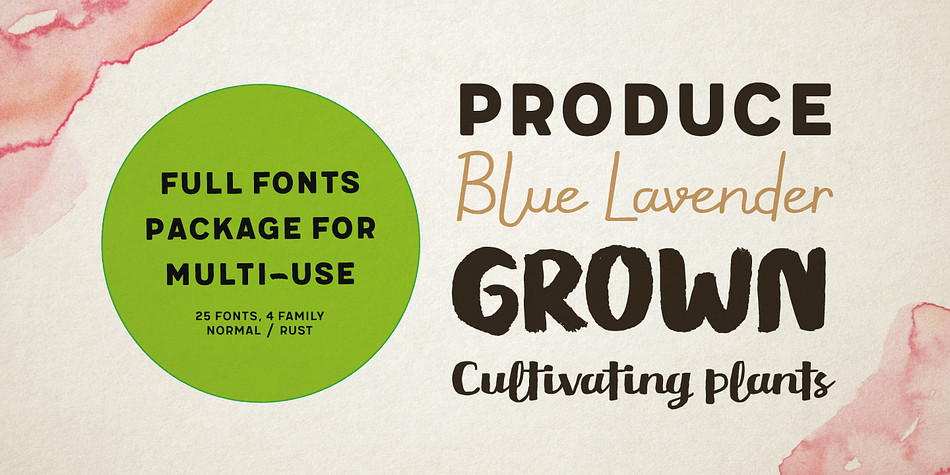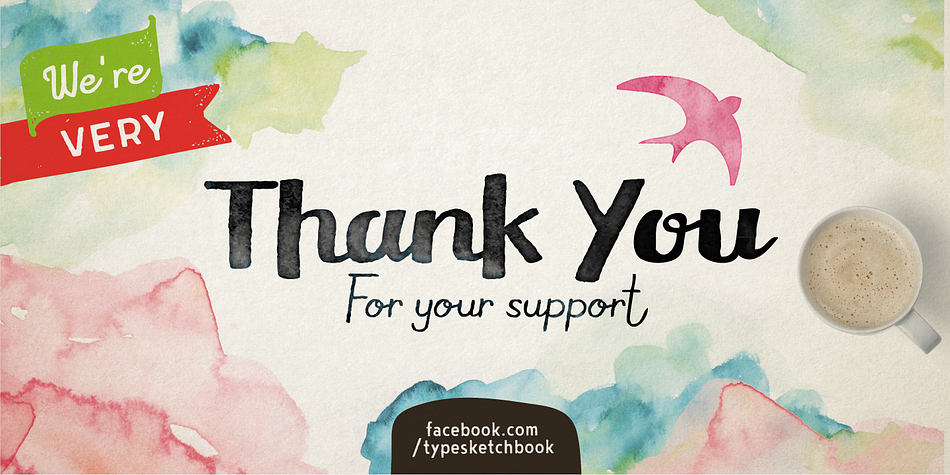
Meltow
Designed by Chatnarong Jingsuphatada, Meltow is a multiple classification font family. This typeface has twenty-five styles and was published by Typesketchbook.
In an age when the stationery is replaced by typing devices, Meltow brings back memories with a design which was created from the actual writing tools and then developed into a convenient-to-use set of fonts.
It features Brush (written with a larger painting brush), Script (smaller painting brush), and Hand (watercolour texture).
It also comes with a San Serif design to befit captions, body text or headlines.
Choose the Rust option for a retro appeal or all-round usage.
A mix of Meltow and other types can open many new design opportunities.
Offering 25 letters in 4 options, Meltow is most desirable for your creative projects.
Meltow features an extra dingbat font.
Meltow is a twenty-five font, multiple classification family by Typesketchbook.
Meltow is designed by Chatnarong Jingsuphatada, includes OpenType Standard Ligatures, has extensive Latin language support and features an extra dingbat font.